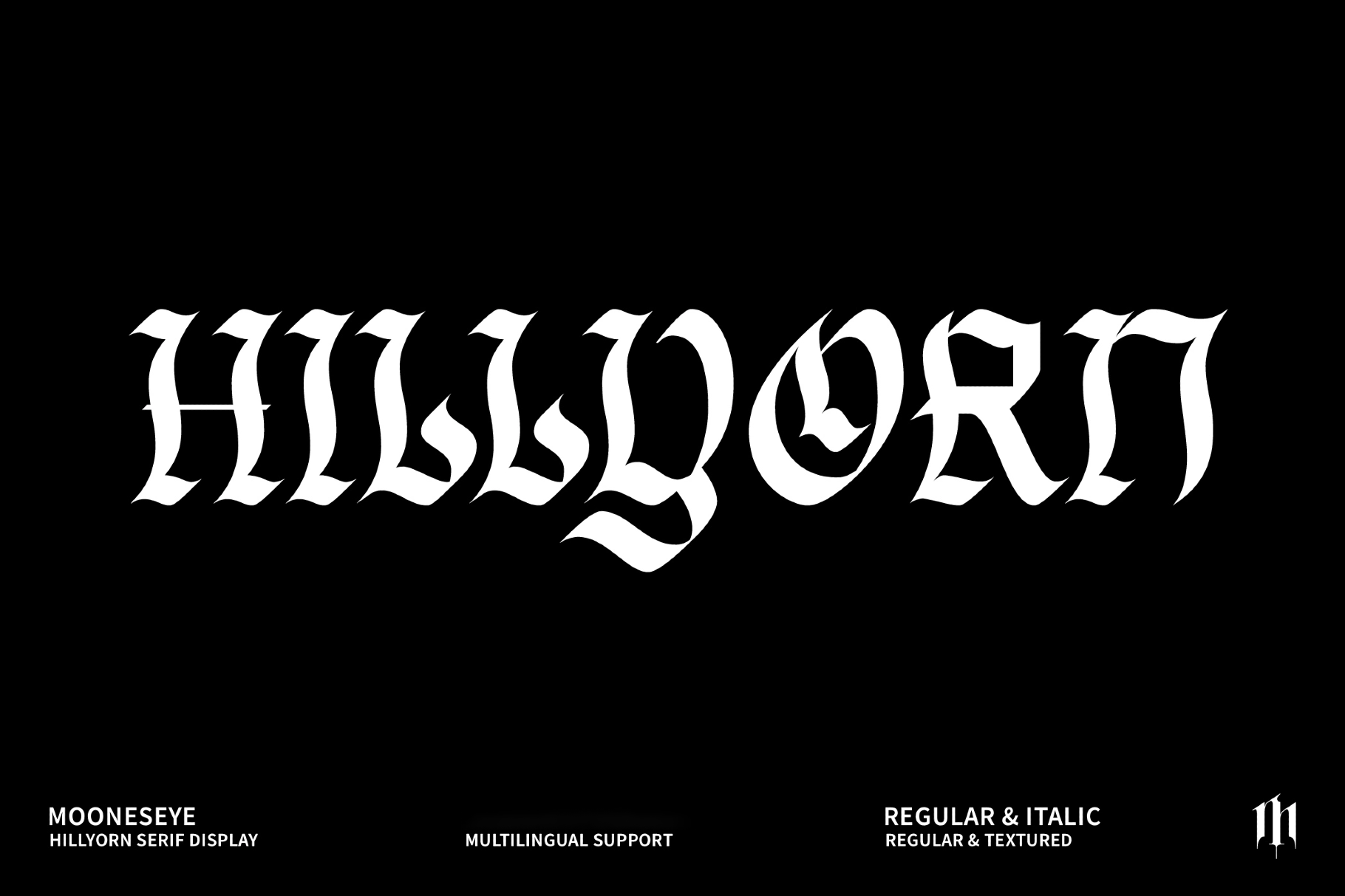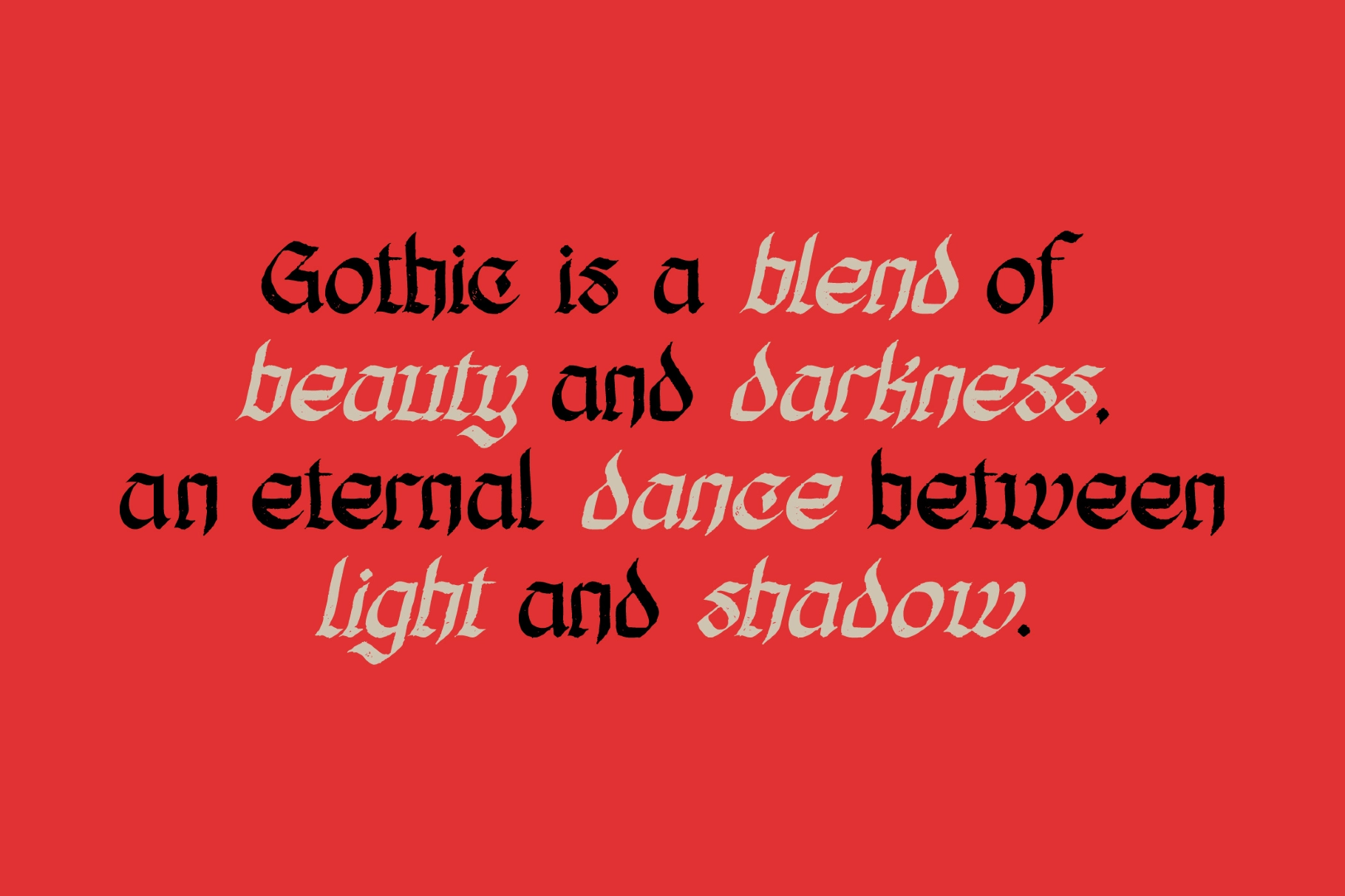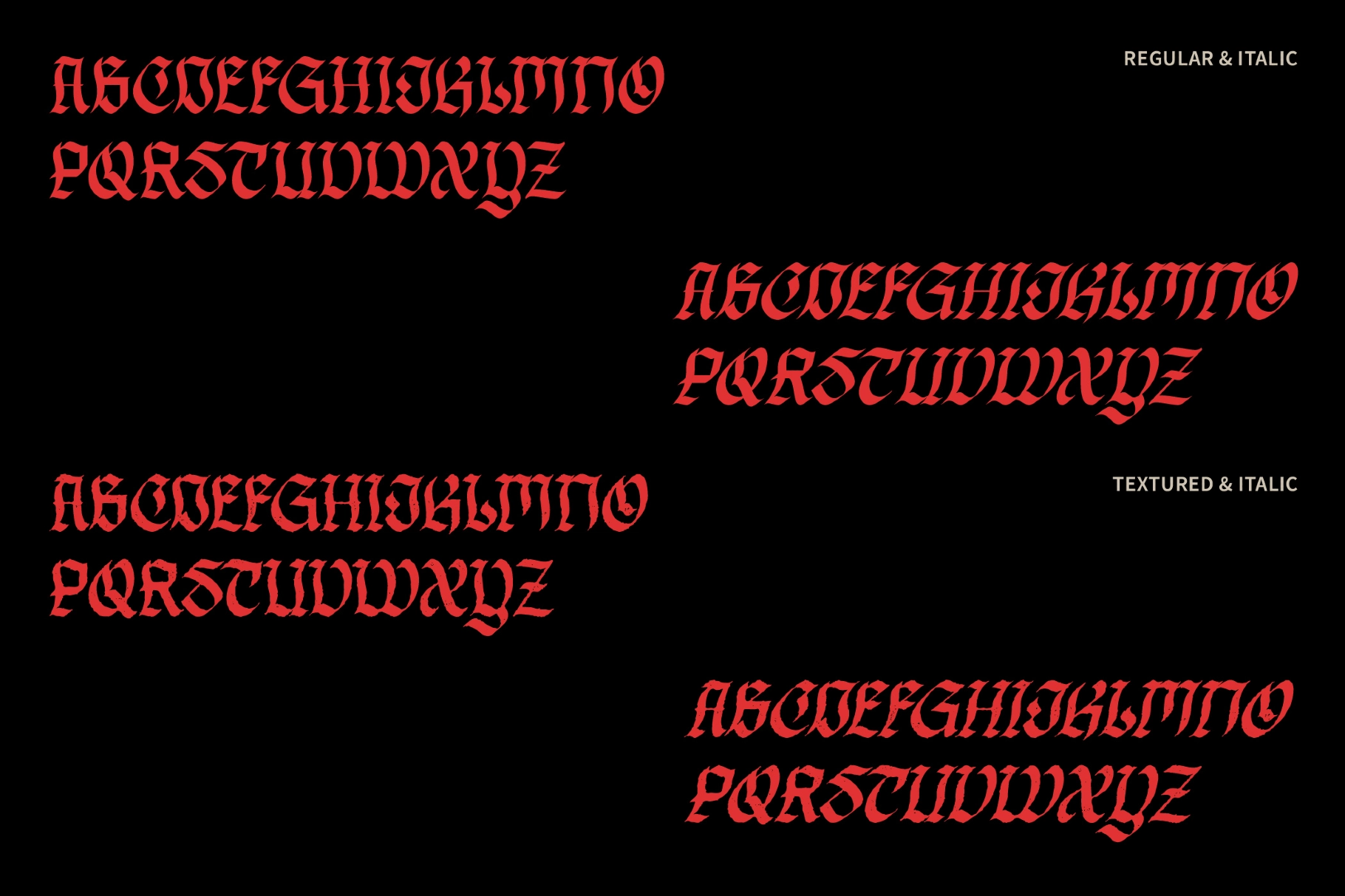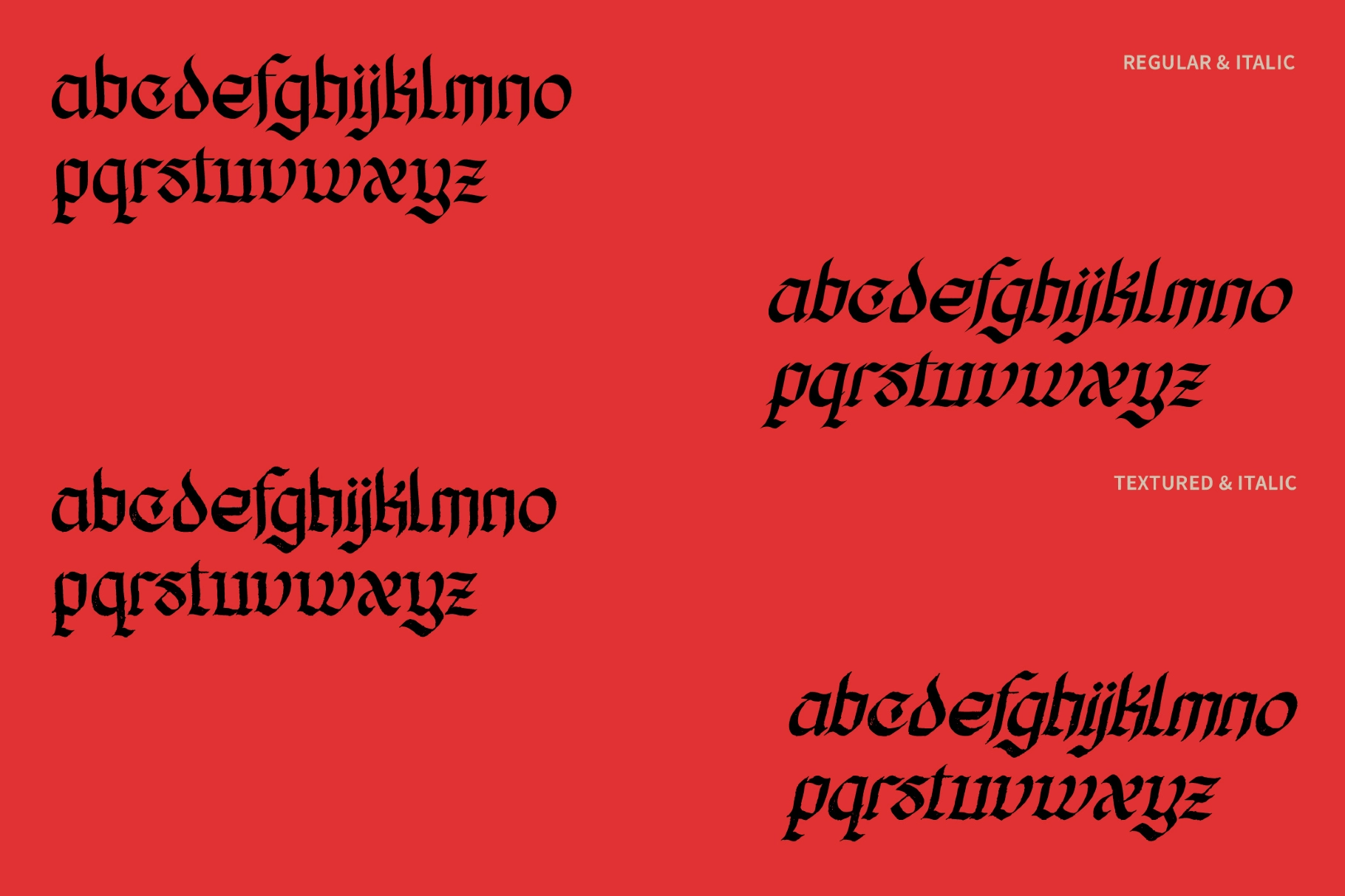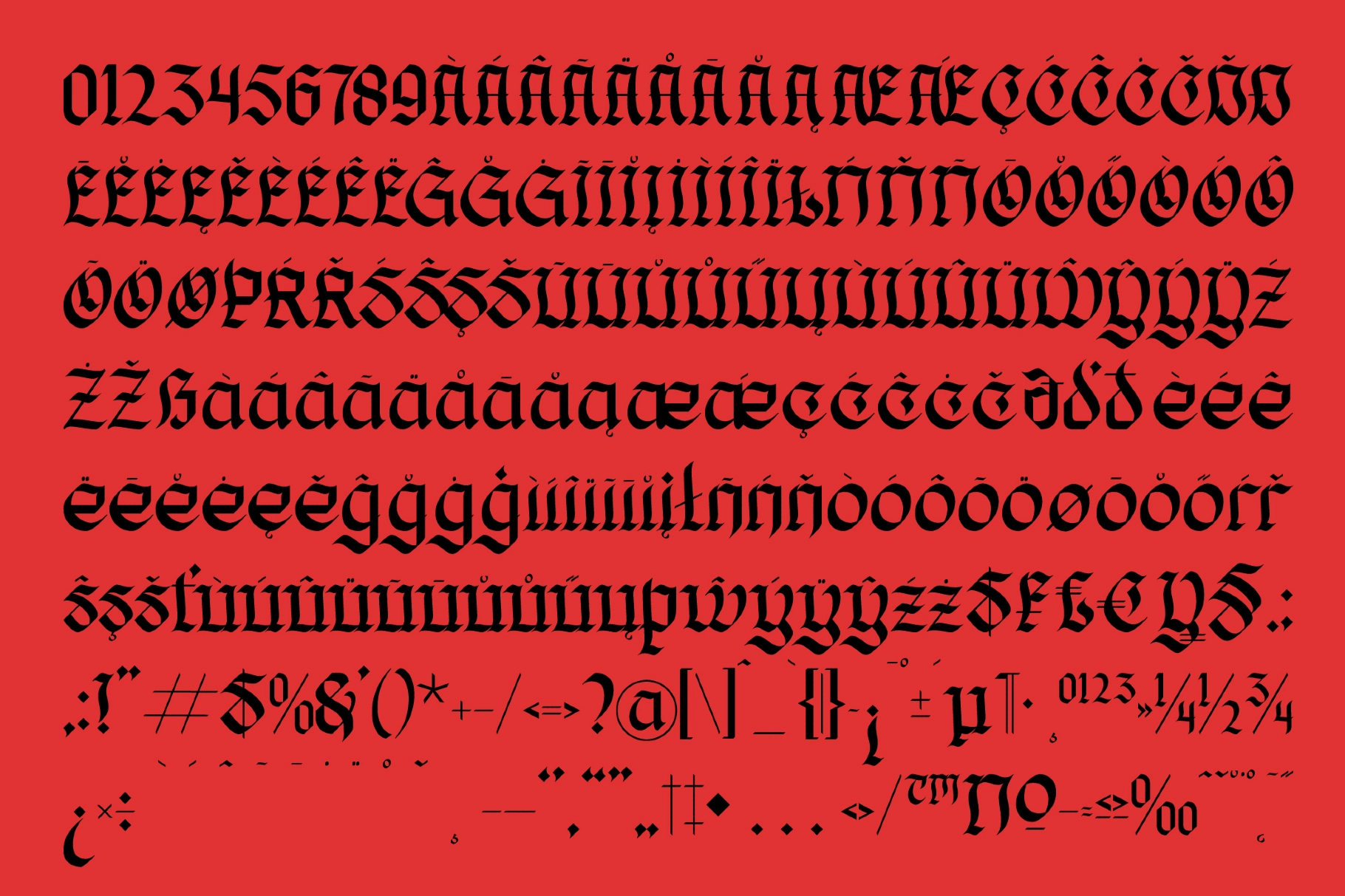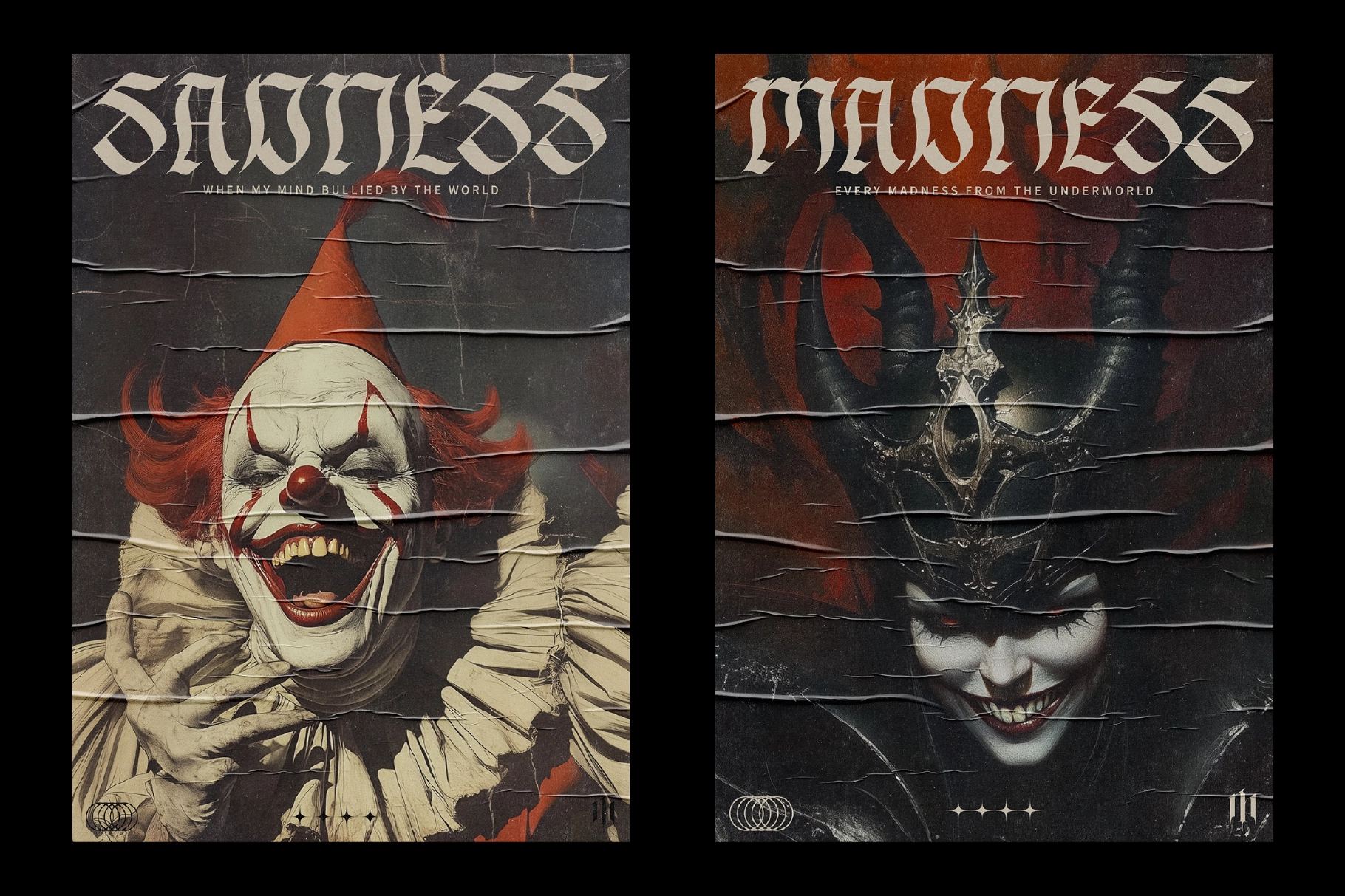
Hillyorn - Modern Blackletter Font
Sharp, dramatic, and cut with a calligraphic bite, this blackletter typeface carries the attitude of old manuscript lettering with a harsher graphic edge. Its narrow forms, hooked terminals, and rough-textured cuts give headlines a dark editorial presence without slipping into costume-party territory.
Hillyorn is made for horror posters, metal band logos, tattoo lettering, album covers, underground zines, gothic apparel, beer labels, book covers, game titles, event flyers, packaging, and more. Regular, italic, and textured styles give the font enough range for polished titles, distressed artwork, and loud merch graphics.